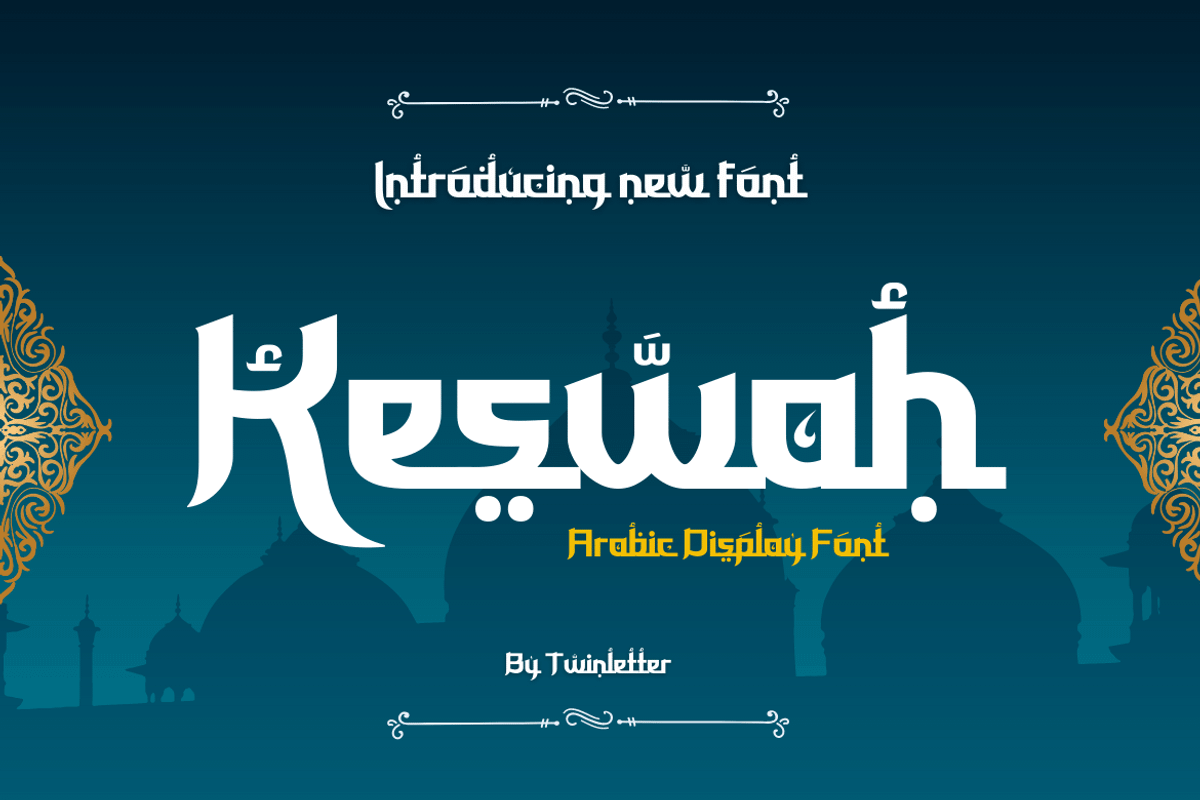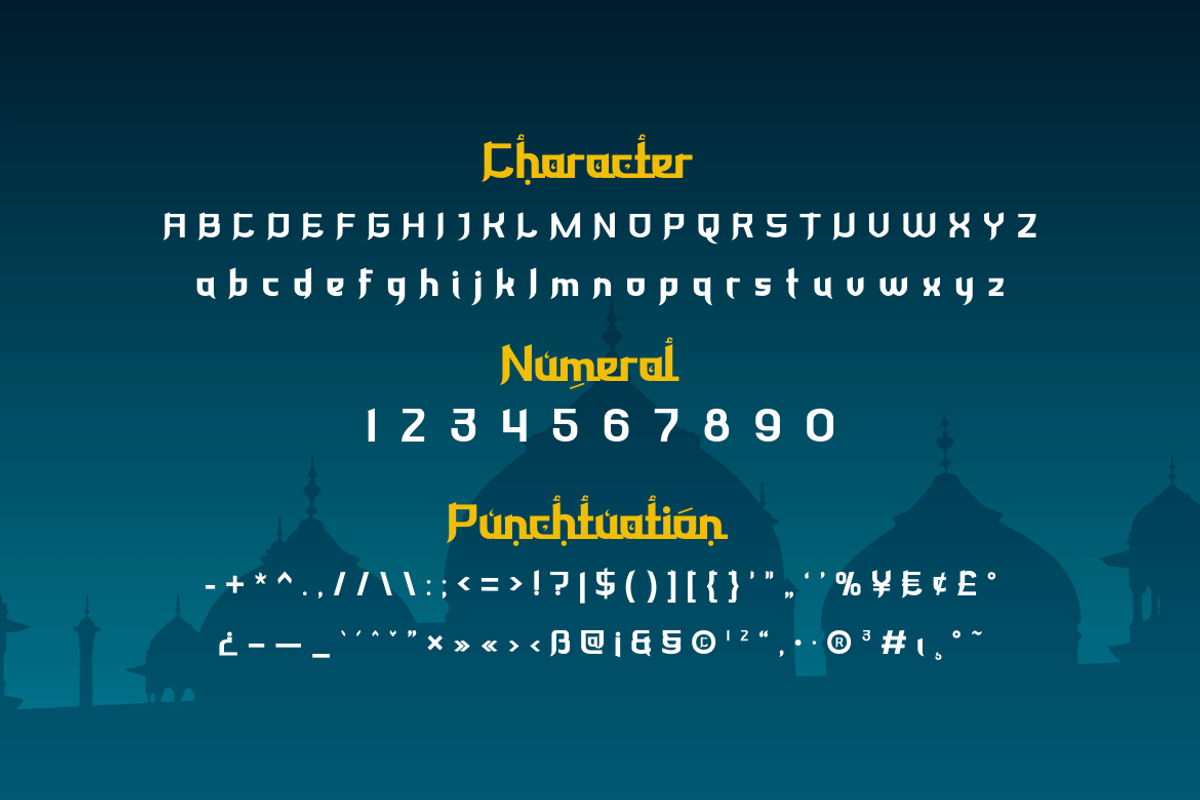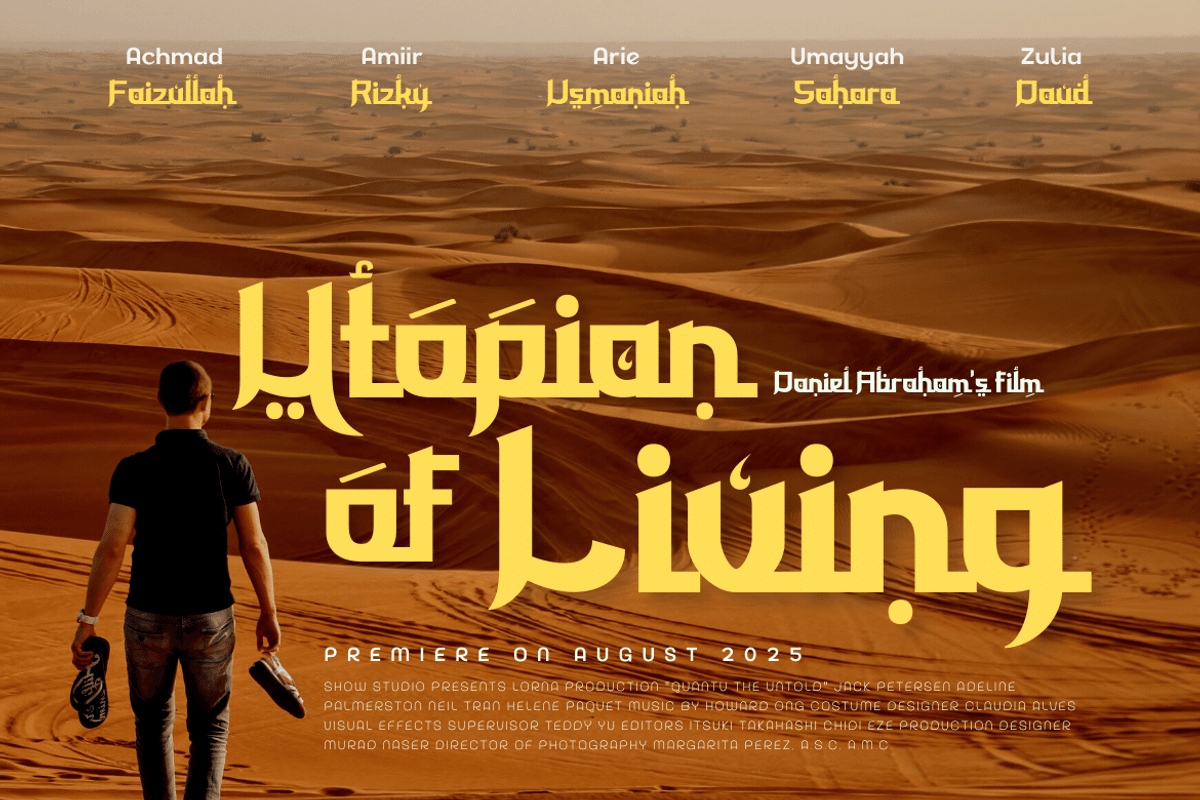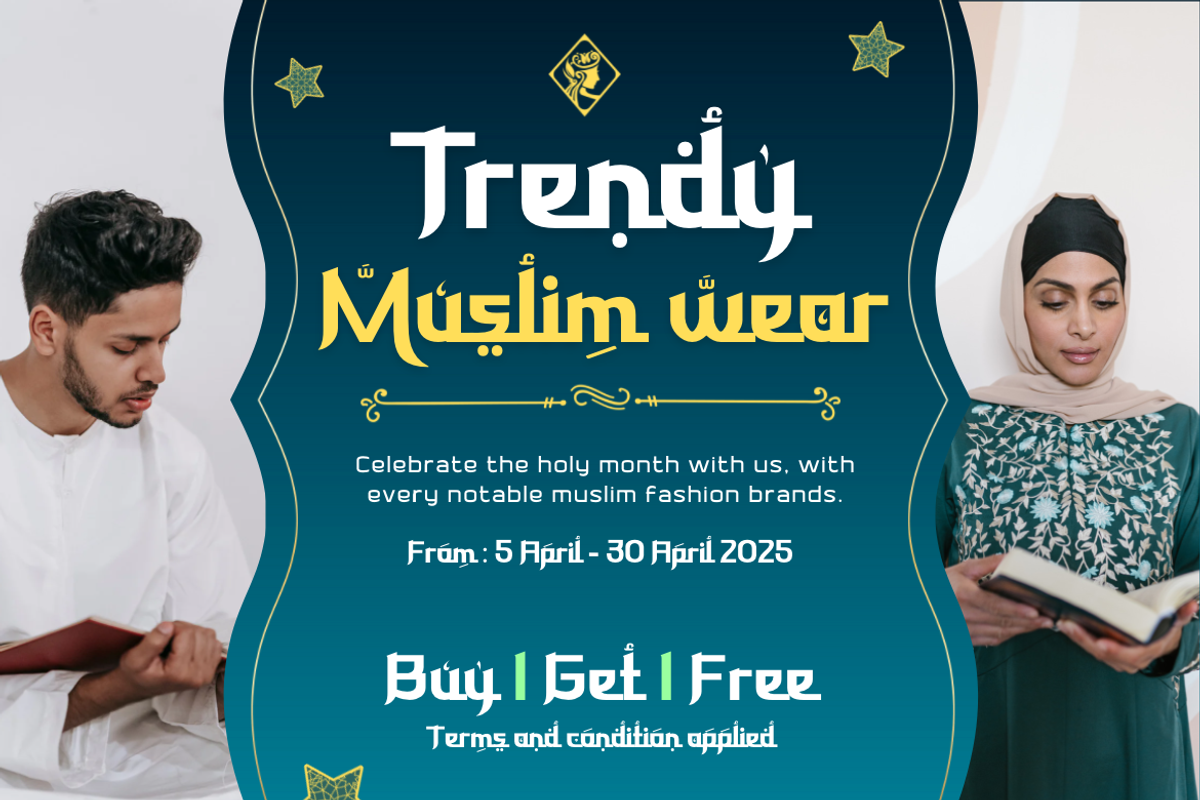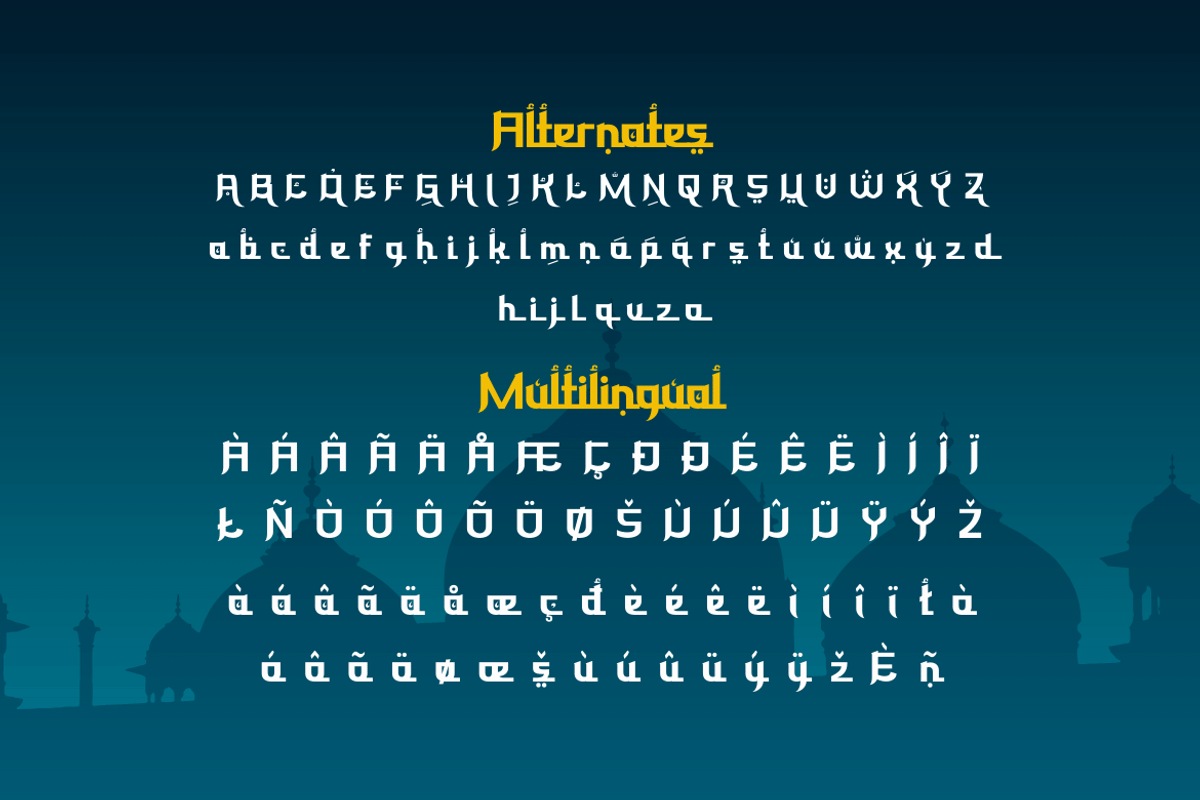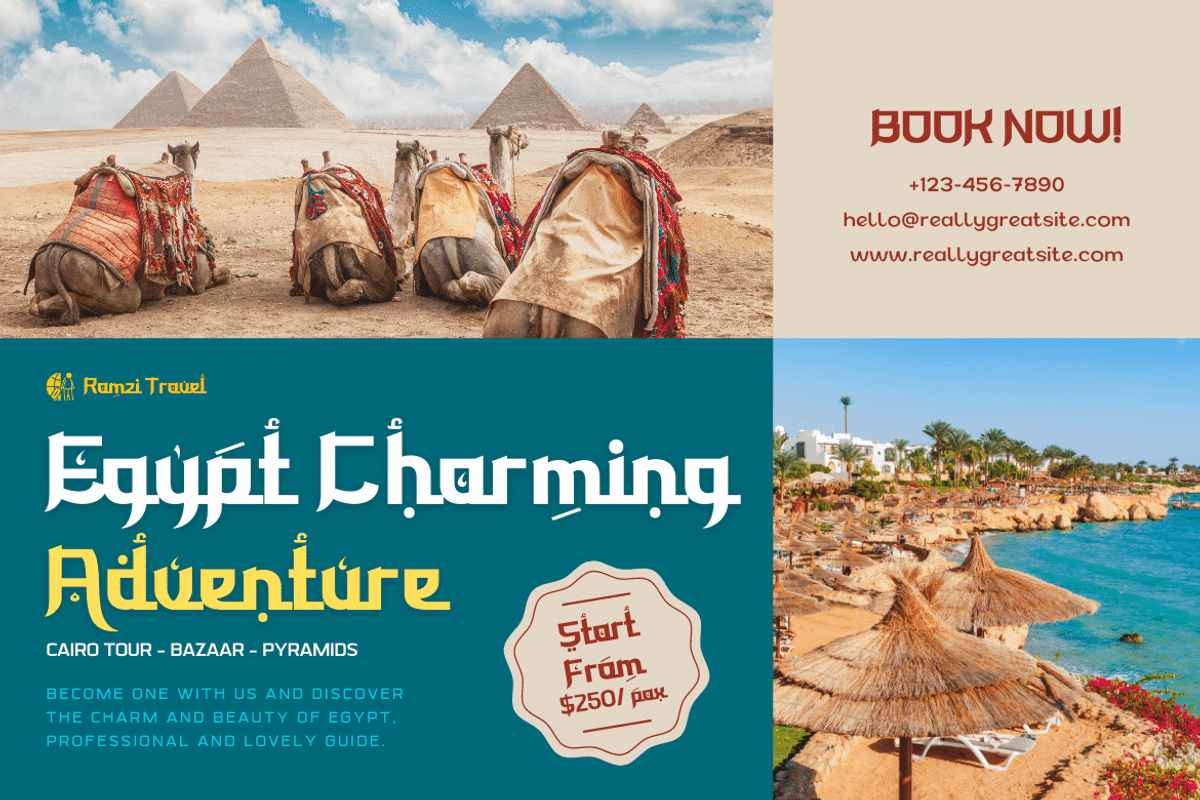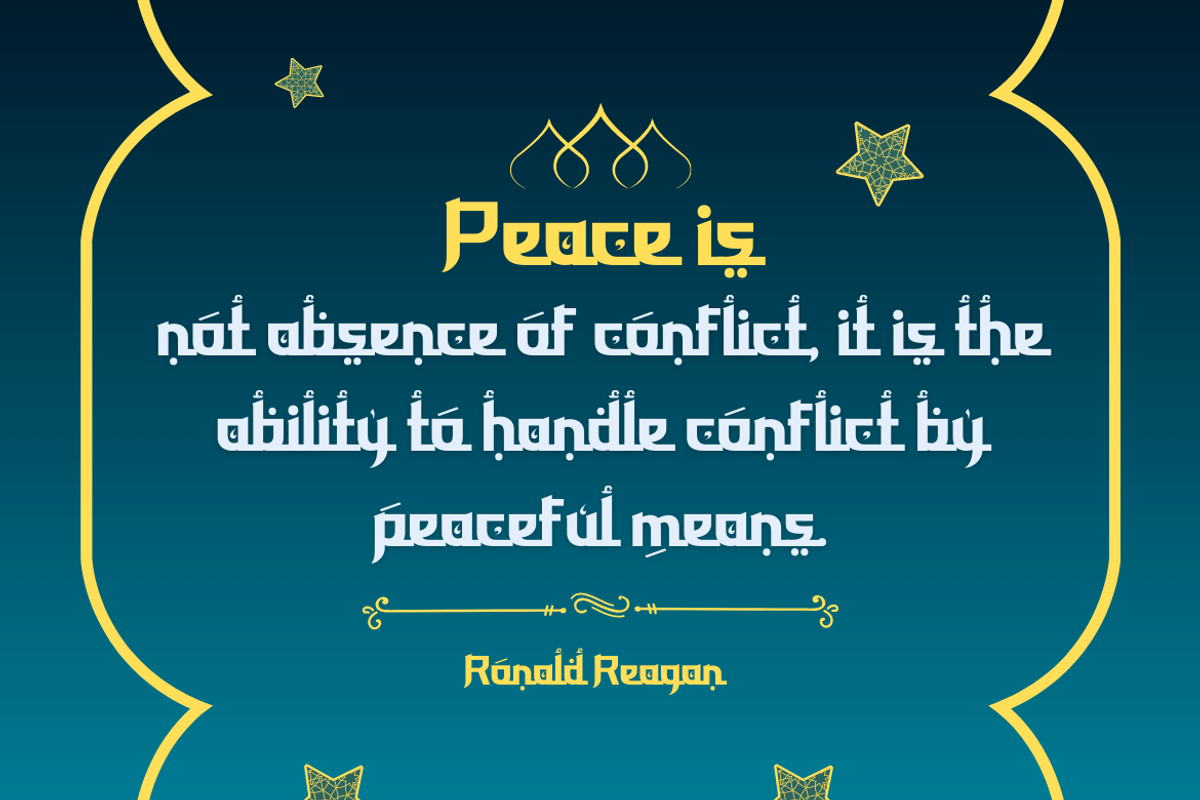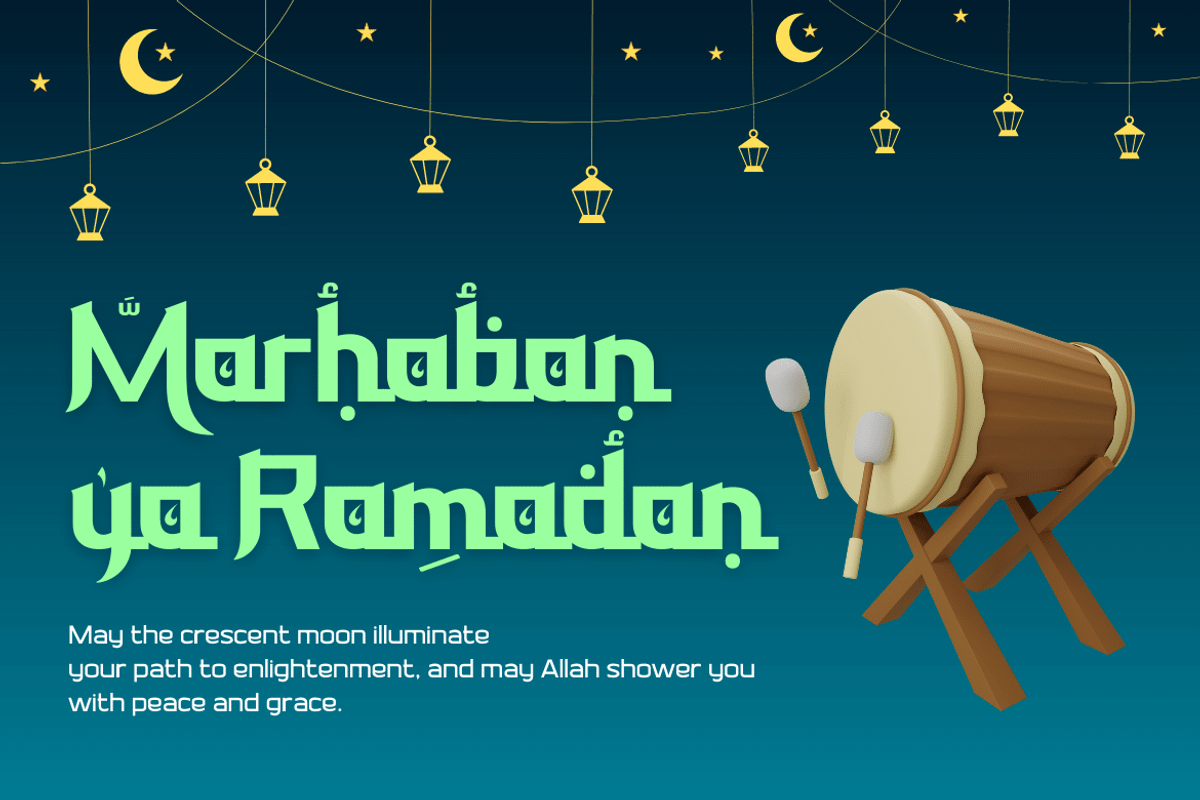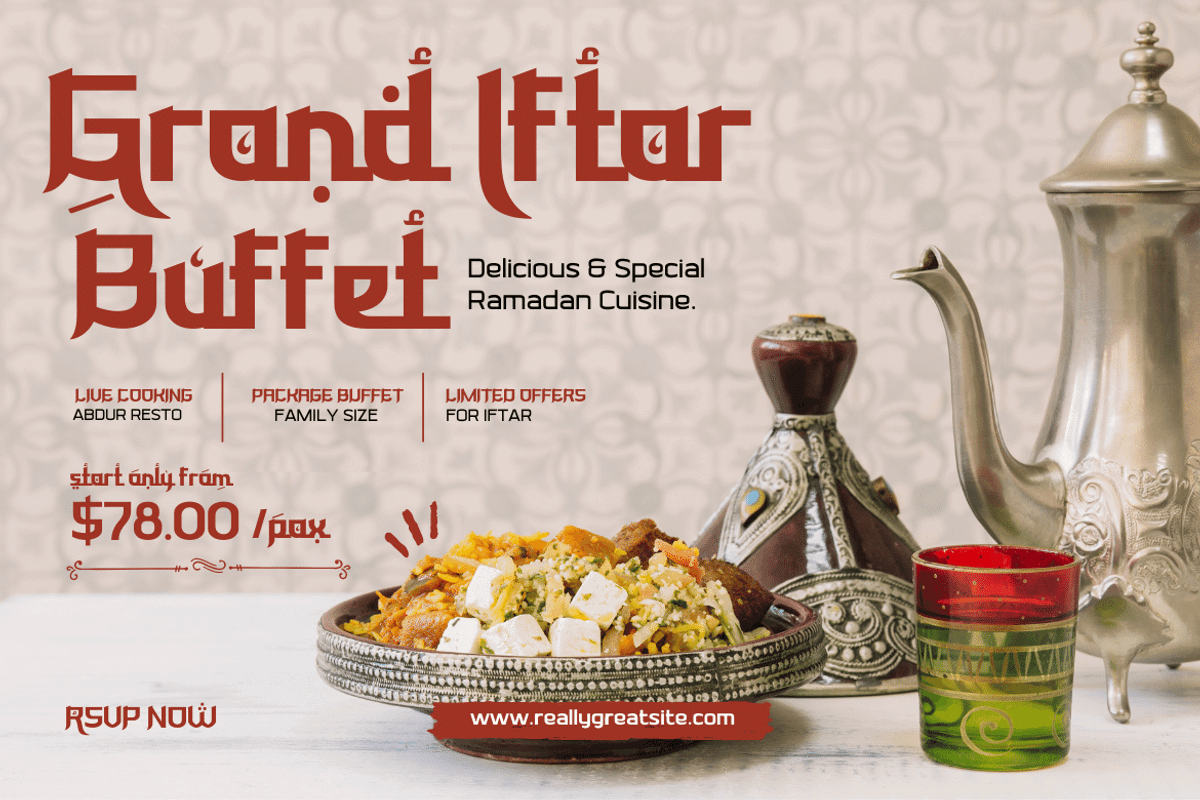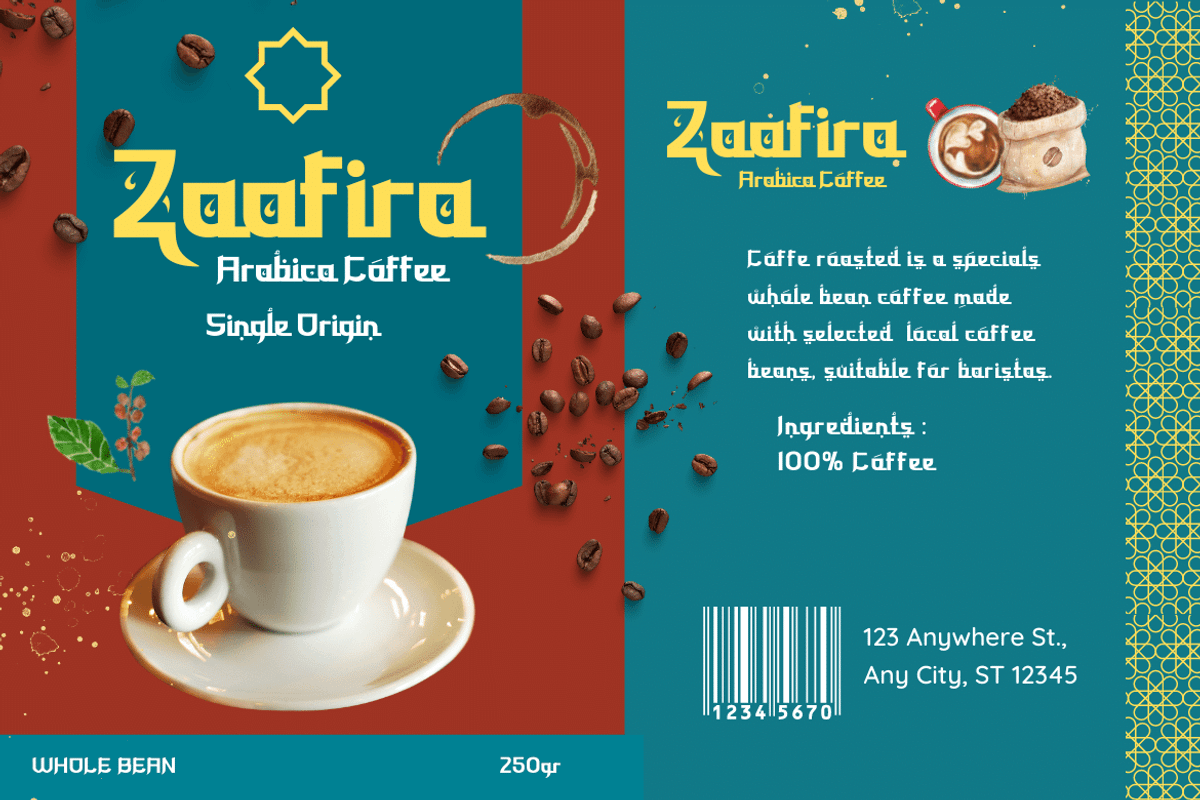
Keswah
Keswah is a calligraphic display font inspired by the heritage of Middle Eastern typography. Each letter is carefully drawn by hand and then digitized to add subtle stroke variations. This font is suitable for a variety of your design needs, especially for designs that require a middle eastern theme